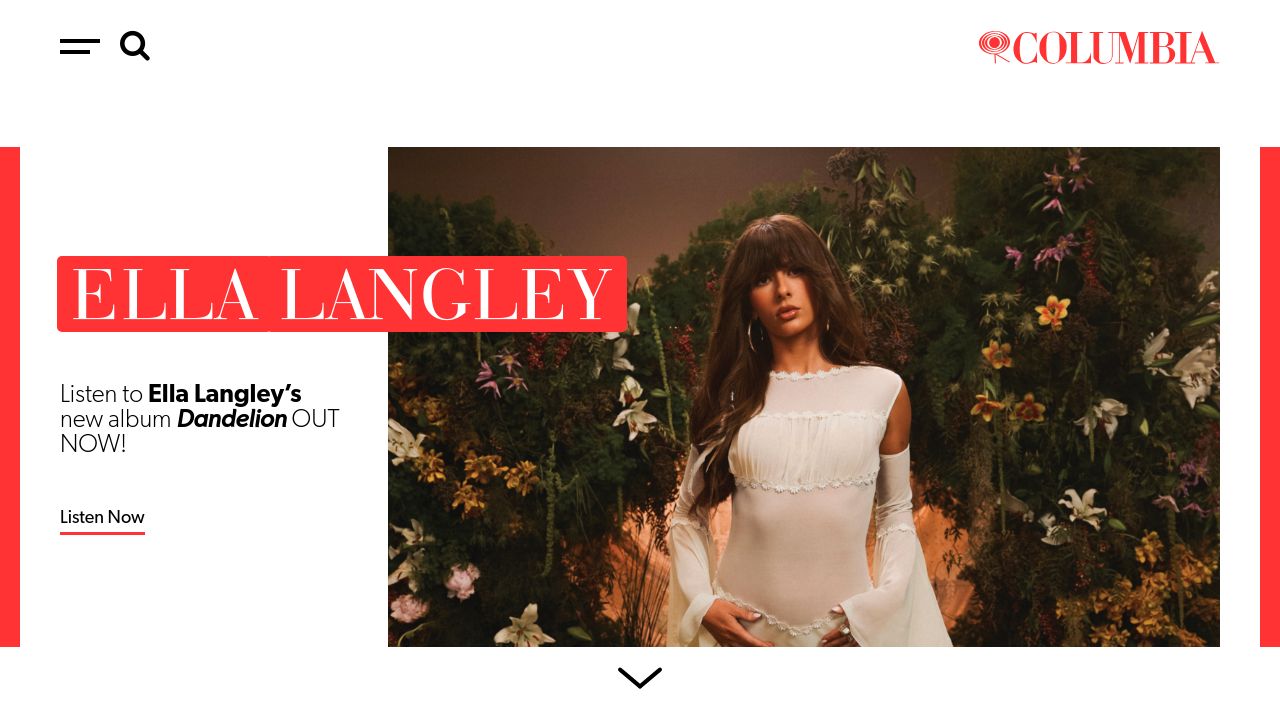
What fonts does Columbiarecords use?
Columbiarecords.com uses Lato, cormorant garamond, Gibson and Bauer Bodni BT Roman as its main typefaces. 5 fonts detected, last checked Sep 20, 2026.
Columbia Records' website, columbiarecords.com, reflects the rich heritage of the music industry through its thoughtful typography choices. The site employs a combination of Lato, cormorant garamond, Gibson, and Bauer Bodni BT Roman, creating a harmonious blend that resonates with its audience. Lato offers readability, while cormorant garamond adds a touch of tradition. Gibson and Bauer Bodni BT Roman enhance the brand's identity, showcasing a commitment to artistic excellence in the music scene.
What fonts does Columbiarecords.com use?
Columbiarecords.com uses Lato, cormorant garamond, Gibson and Bauer Bodni BT Roman as its main typefaces. 5 fonts detected, last checked Sep 20, 2026.
What fonts are used on columbiarecords.com?
Columbia Records' website features a selection of fonts including Lato, cormorant garamond, Gibson, and Bauer Bodni BT Roman, providing a distinctive visual experience.
How does Lato compare to other sans-serif fonts?
Lato is known for its versatility and clarity, making it a great choice for web use. It stands out among other sans-serif fonts for its warmth and approachability, which suits Columbia Records' branding.
What are the weights available for cormorant garamond?
The cormorant garamond font used on columbiarecords.com is available in a regular weight of 400, which enhances its legibility and traditional aesthetic.
Why does Columbia Records use Gibson and Bauer Bodni BT Roman?
Gibson and Bauer Bodni BT Roman provide a classic feel that aligns with Columbia Records' heritage, helping to convey the brand's commitment to quality music production.